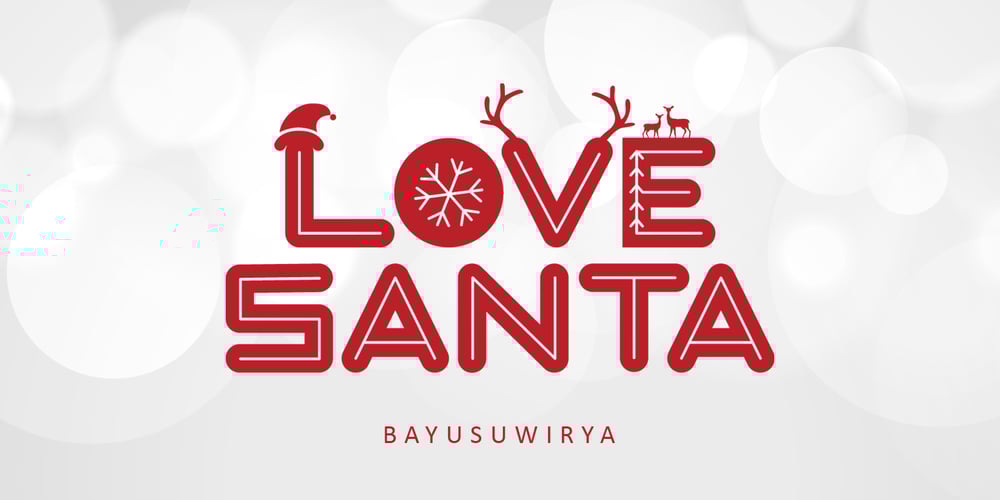
Love Santa Font Family was designed by Bayu Suwirya and published by Illushvara. Love Santa contains 1 styles and family package options. Love Santa merges a classic sans serif font with beautiful Christmas ornaments, creating a one-of-a-kind holiday font! Add some jolly Christmas vibes to any design project with this festive font. If you have any question, don’t hesitate to contact me by email or send me massage. Happy designing.